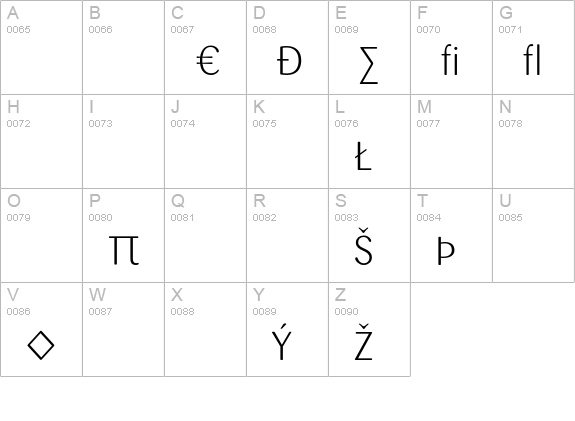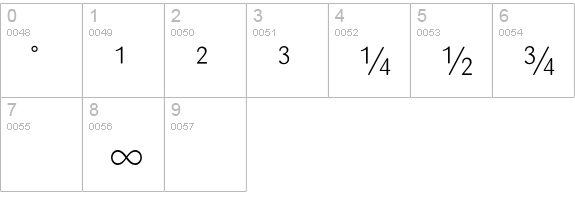
Sari-LightExp Font Details
Sari-LightExp font is a stunning typeface that effortlessly captures attention with its elegant and refined design. Its clean lines and delicate curves make it a perfect choice for projects that require a touch of sophistication and style. This font exudes a sense of lightness and grace, allowing it to seamlessly blend into any design concept. Whether used in digital or print media, Sari-LightExp adds a distinct charm to logos, branding materials, advertisements, invitations, and more. What makes Sari-LightExp font even more appealing is the fact that it is freely available for download at FontsMarket.com. This means that designers, creatives, and enthusiasts can access this exceptional font without any cost. Its availability allows for endless possibilities, encouraging users to explore and experiment with their designs. With its versatility and timeless appeal, Sari-LightExp font is a must-have for any designer's toolkit. Its effortless beauty and free availability make it an irresistible choice for those seeking a font that can enhance their projects with a touch of sophistication and elegance. Download Sari-LightExp font today and let your creativity soar to new heights.